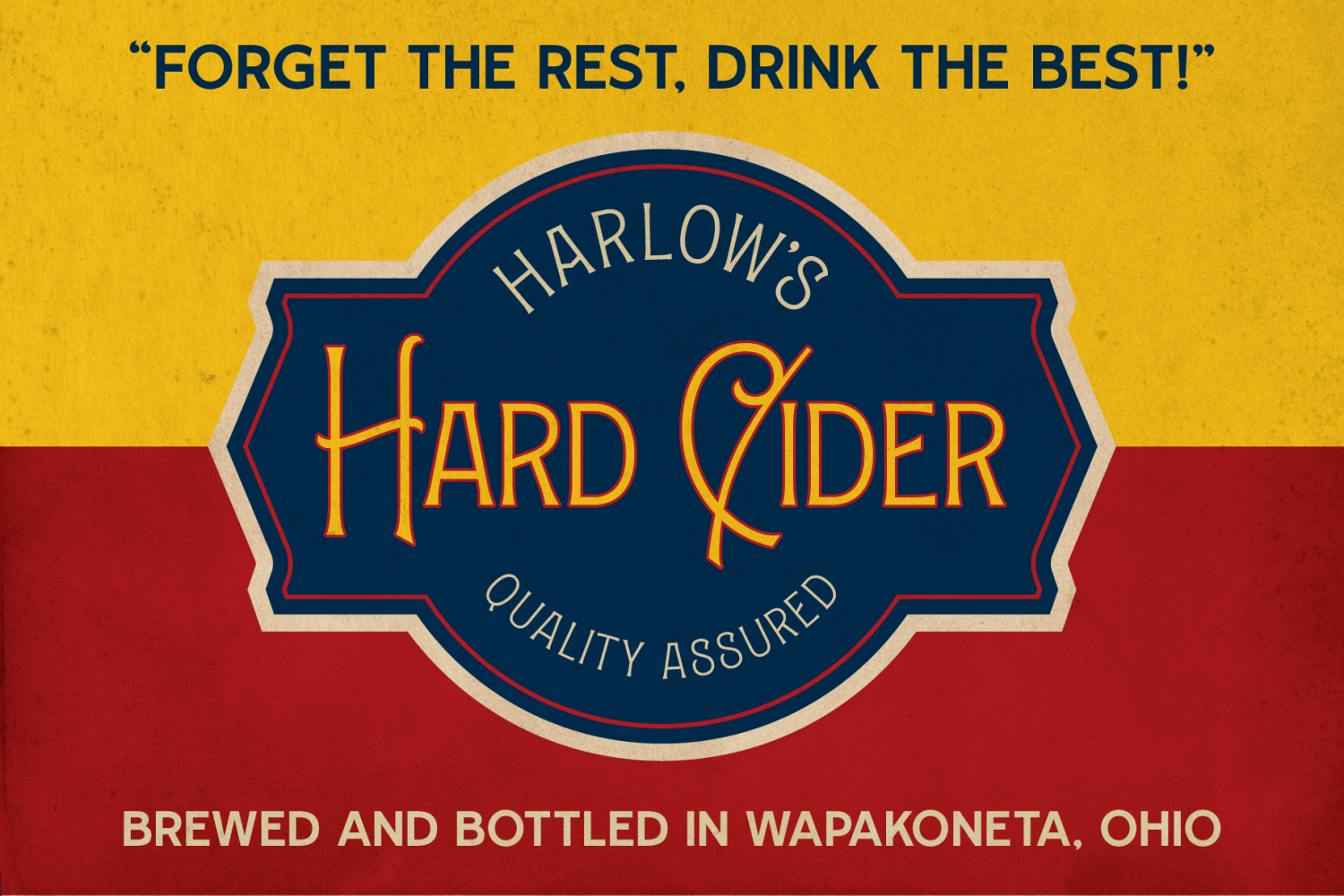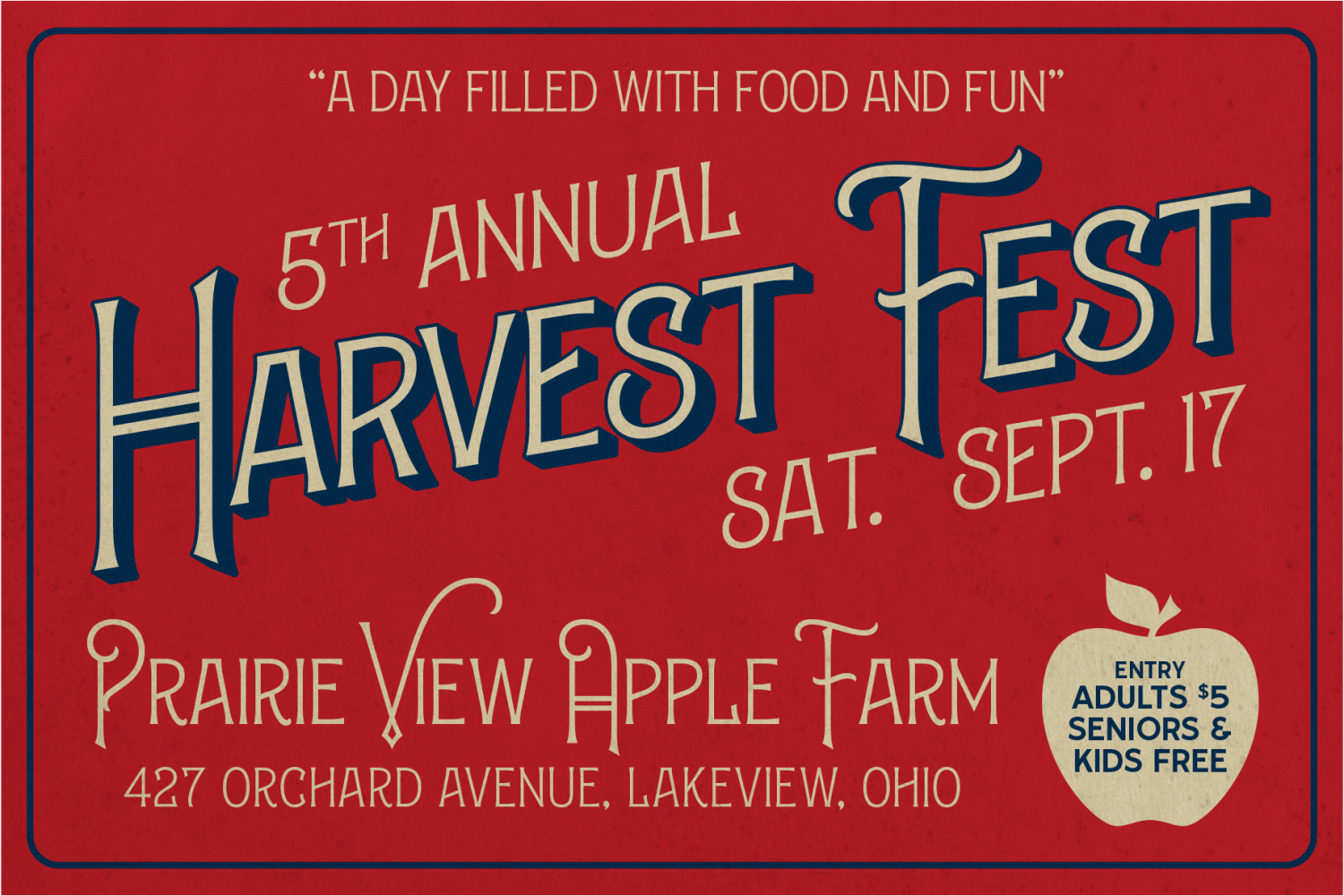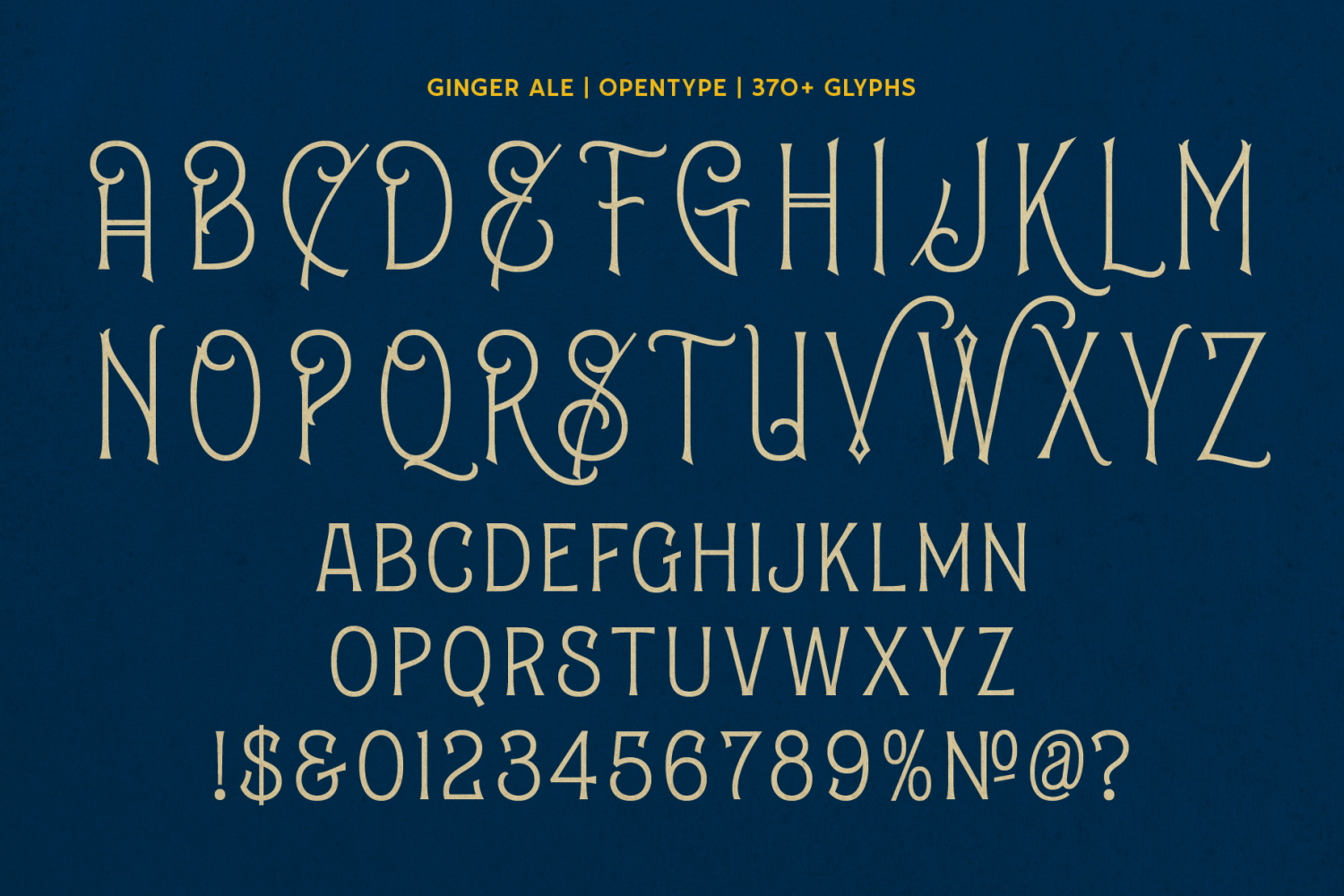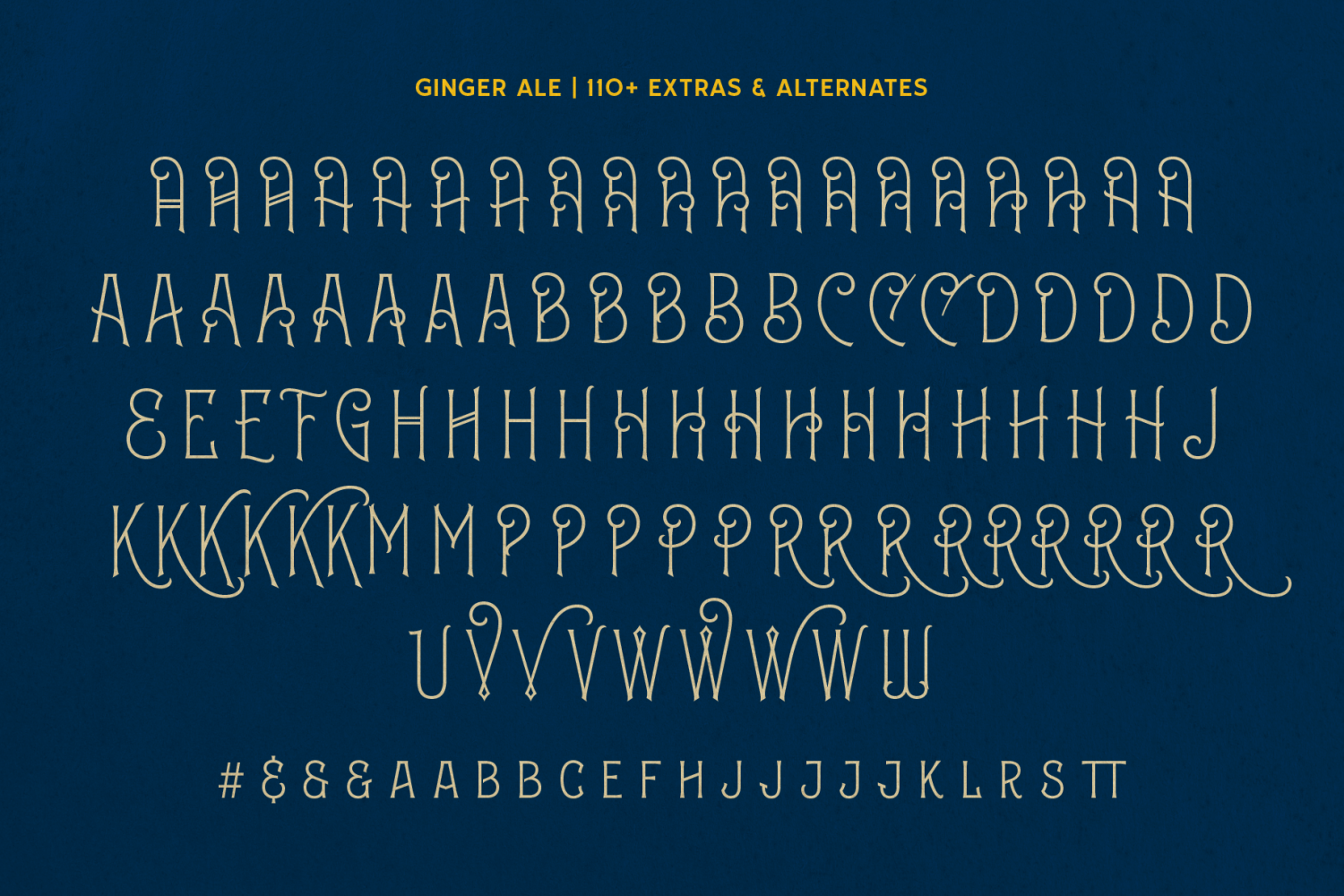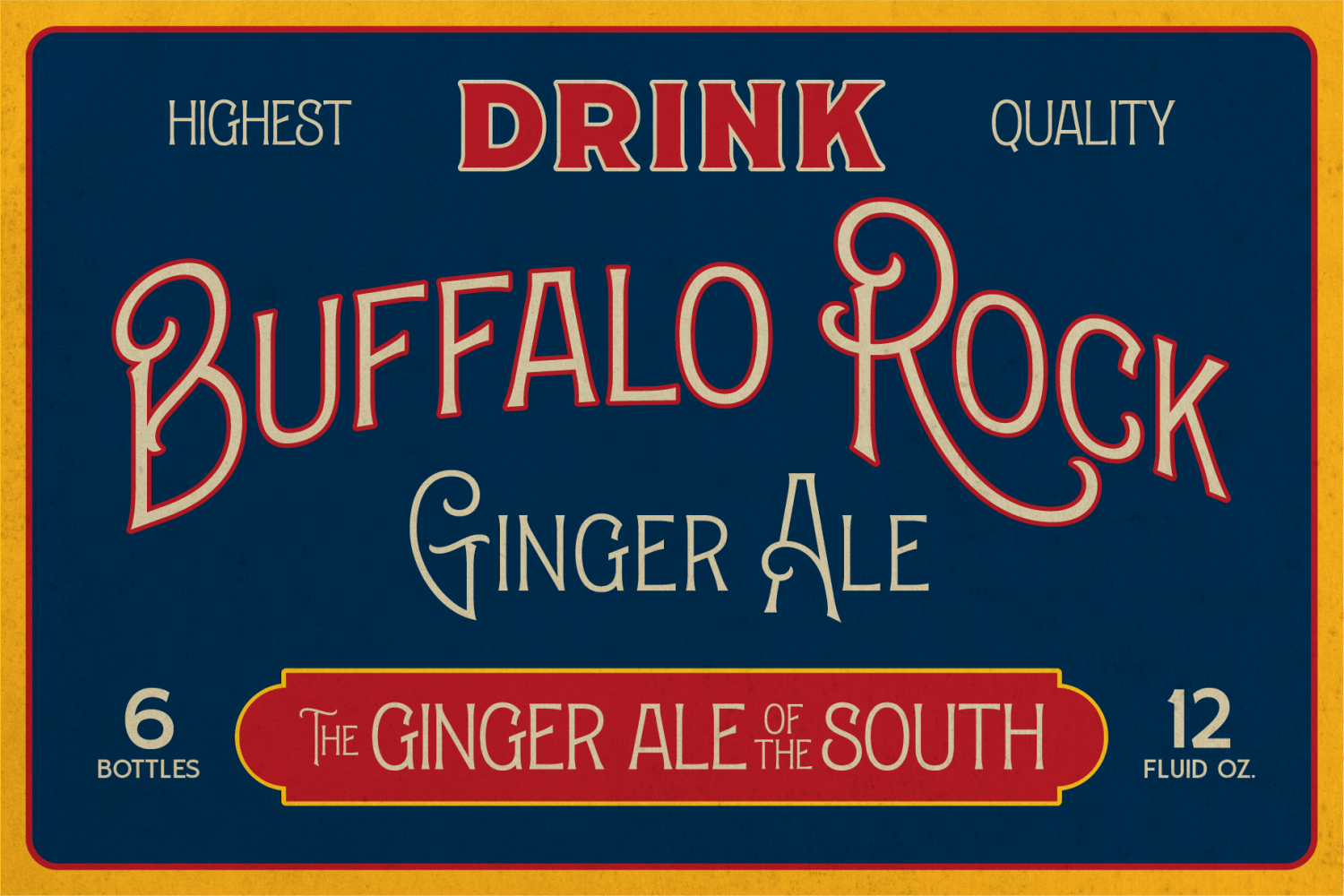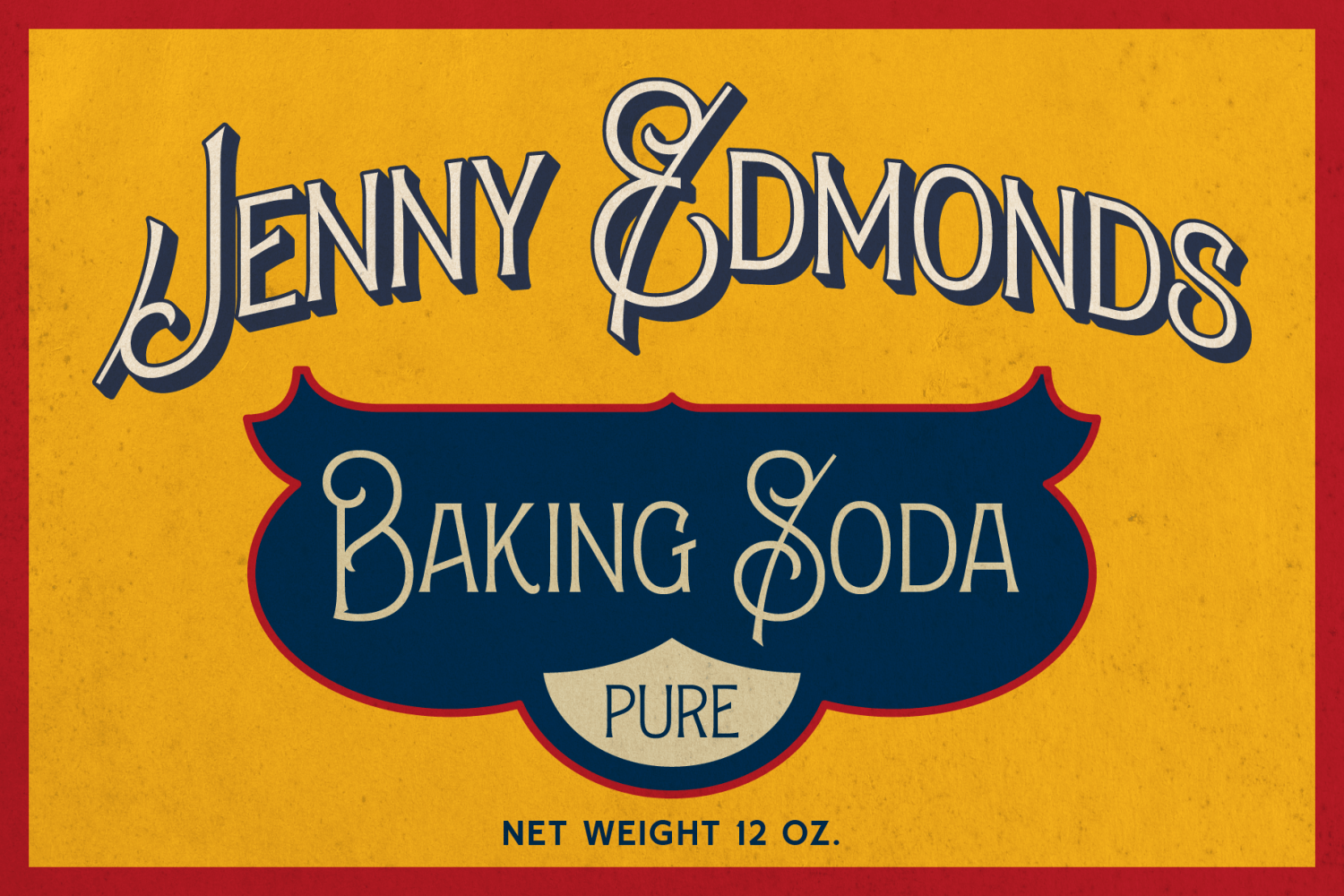
Ginger Ale is a vintage, light weight display font inspired by early American hand lettered bottle labels and packaging. Featuring a light serif and elegant curves, it\’s great for logos, package design, book covers and more. And with 110+ stylistic alternates,…